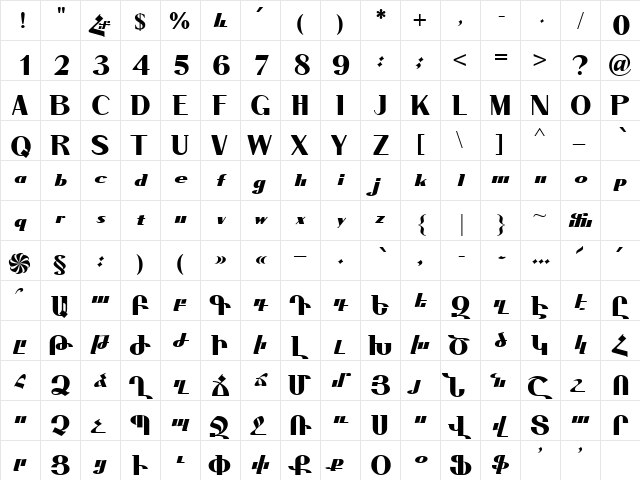
ArTarumianGrqiNor Bold
Design Context for ArTarumianGrqiNor Typeface
ArTarumianGrqiNor takes a measured approach to typography — its balanced proportions and neutral character make it a reliable workhorse for both digital and print work. The heavy weight commands attention and anchors typographic hierarchies.